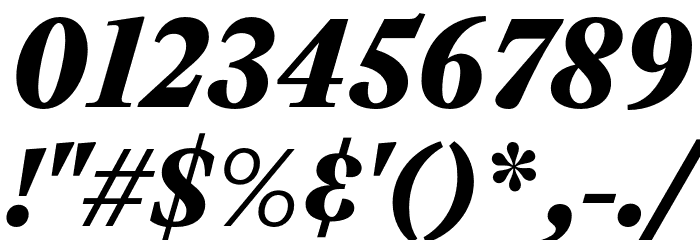
Leyendo DEMO Black Italic Font
This font exhibits a bold and dynamic style with a strong italic slant, giving it a sense of movement and energy. The characters are thick and robust, with a high contrast between the thick and thin strokes, which adds to its dramatic appearance. The serifs are pronounced, providing a classic touch to the otherwise modern and bold design. The overall look is both elegant and assertive, making it suitable for impactful headlines and statements. The spacing between characters is tight, enhancing the compact and cohesive feel of the text.
A bold, italic serif font with high contrast and dynamic style.